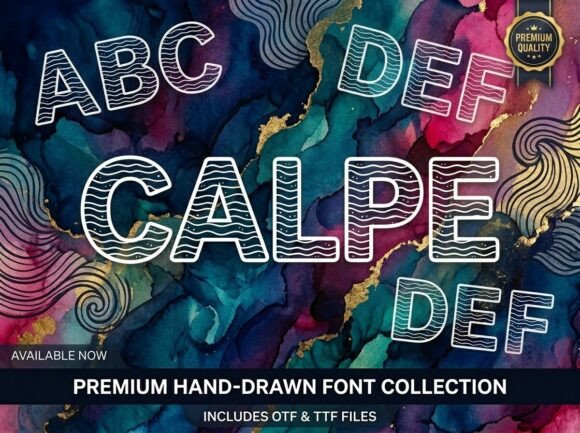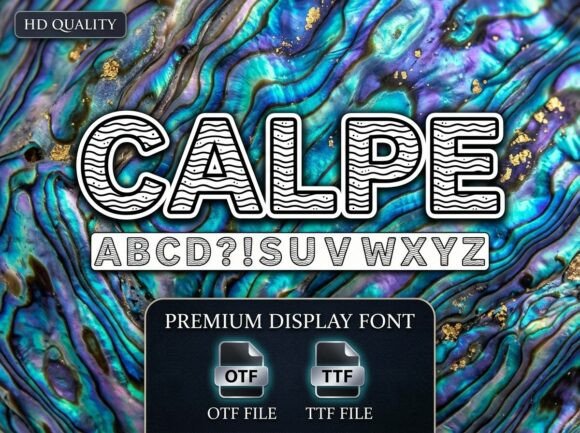
Discover the Stunning Calpe Font: Elevate Your Designs with Unique Artistic Elements
Have you ever been in the middle of a design project, pouring your heart and soul into it, only to hit a creative roadblock because you just can’t find the right font? I certainly have! It was during one of those moments, working on a high-end branding project for a luxury client, that I stumbled upon the Calpe Font. This decorative display font has been a game-changer for me, and I’m excited to share my experience with you.
A Personal Encounter with Calpe Font
I was tasked with creating a bold, eye-catching logo that would make a statement. After hours of scouring through font libraries, I finally came across Calpe Font. Its unique artistic elements and strong visual personality immediately caught my attention. I knew right then and there that it was the perfect fit for my project. The font’s versatility shone through as I used it for bold headlines, artistic logos, and creative packaging, and it maintained a professional and polished finish throughout.
An Honest Review of Calpe Font
So, what do I love about Calpe Font? Here are a few highlights:
• ✨ Unique Artistic Elements: Each letter is a work of art, making it perfect for high-impact headlines and logos.
• ✅ Professional and Polished Finish: Despite its decorative nature, the font maintains a level of sophistication that’s hard to achieve with display fonts.
• 🔥 Versatility: It’s suitable for a wide range of design projects, from bold headlines to artistic logos and creative packaging.
However, there are a couple of quirks to be aware of:
• ⚠️ All-Caps Limitation: Calpe Font is an all-caps display typeface, which means it doesn’t include lowercase letters. This is something to consider if you’re looking for a font for body text.
• 🤔 Glyphs and Alternates: While the font does offer some glyphs and stylistic alternates, it’s not as extensive as some other fonts. This might limit your creative options slightly.
The Backstory of Calpe Font
While the origins of Calpe Font are shrouded in mystery, it’s clear that the designer was inspired by the need for unique, artistic elements in modern design. The font’s creator aimed to craft a typeface that would stand out in a sea of generic fonts, providing designers with a tool to make a lasting impression.
Is Calpe Font suitable for body text? No, Calpe Font is designed specifically for display purposes and does not include lowercase letters.
Does Calpe Font include glyphs and stylistic alternates? Yes, Calpe Font offers some glyphs and stylistic alternates, but the selection is limited compared to other fonts.
In conclusion, Calpe Font is a stunning decorative display font that can elevate your designs with its unique artistic elements and strong visual personality. While it has some limitations, its benefits far outweigh them, making it a valuable addition to any designer’s toolkit.